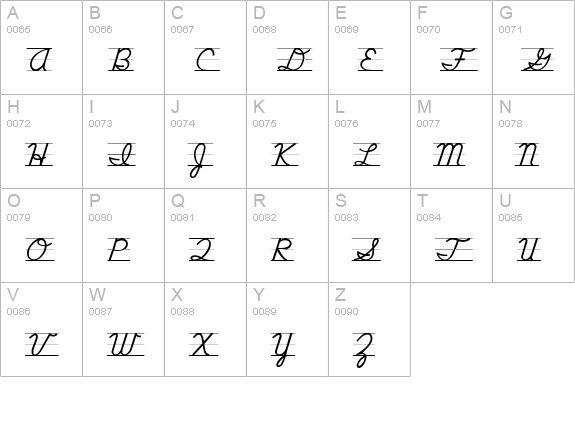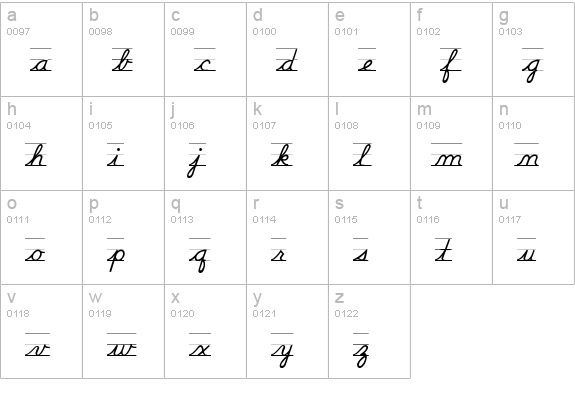
DNealianGuides Font Details
DNealianGuides font is a versatile and modern typeface that is perfect for educational materials, children's books, and other creative projects. Its clean lines and easy readability make it a popular choice for teachers, parents, and designers alike. This font features unique guide lines that mimic the D'Nealian style of handwriting, making it ideal for practicing and teaching handwriting skills. The guides are subtle yet effective, providing a helpful reference for letter formation and spacing. DNealianGuides font is available for free download at FontsMarket.com, making it accessible to anyone looking to enhance their design projects or educational materials. Whether you're working on a school project, a children's book, or a branding campaign, this font is sure to add a touch of professionalism and style. Download it today and see the difference it can make in your work!